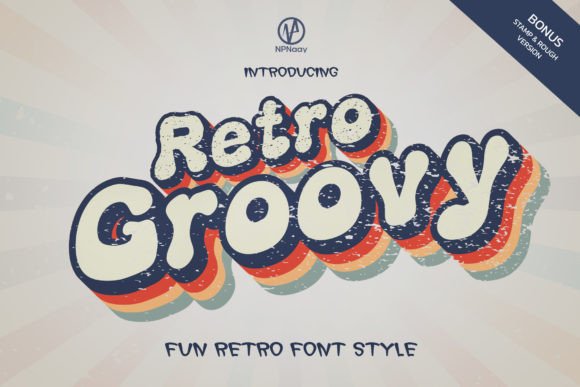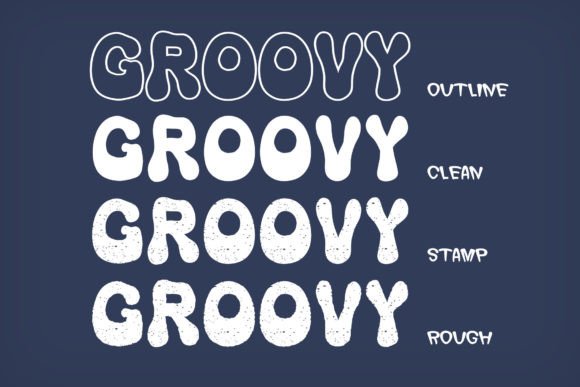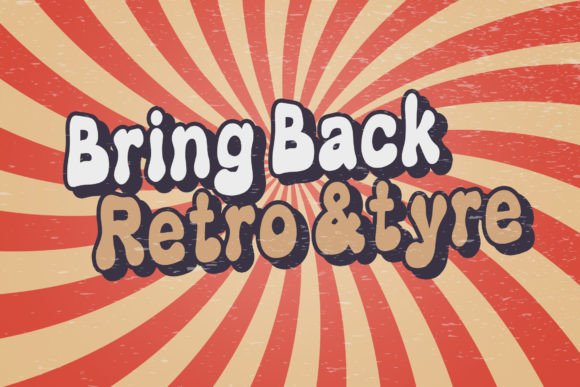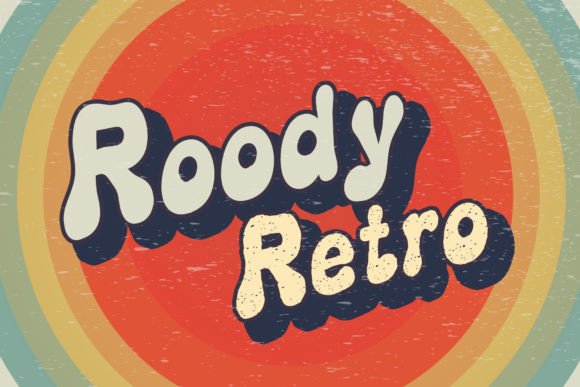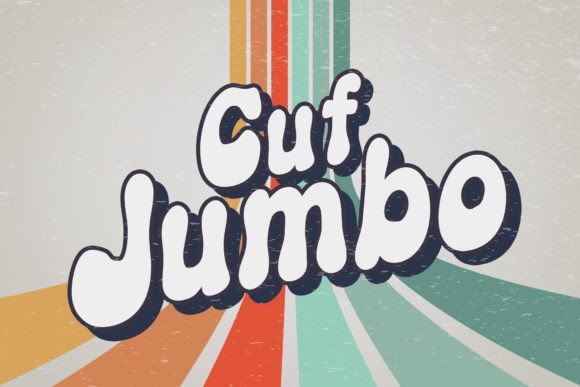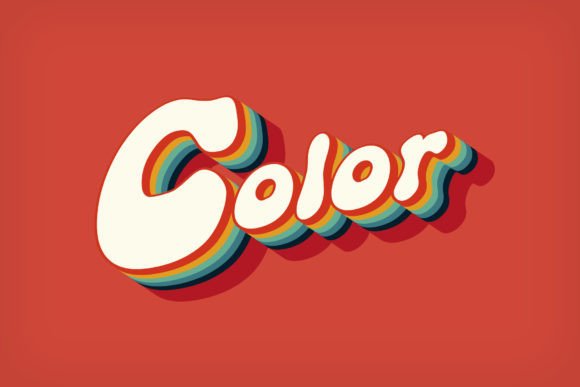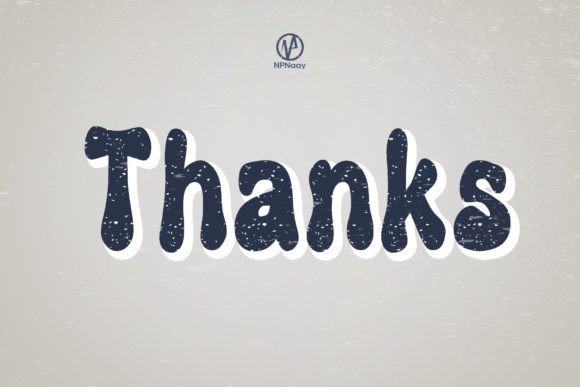
Retro Groovy Font
Retro Groovy is a cool, retro, and cute display font suitable for a wide spectrum of applications. From greeting cards to headlines, stickers, and greeting cards, this font will definitely elevate any creation.